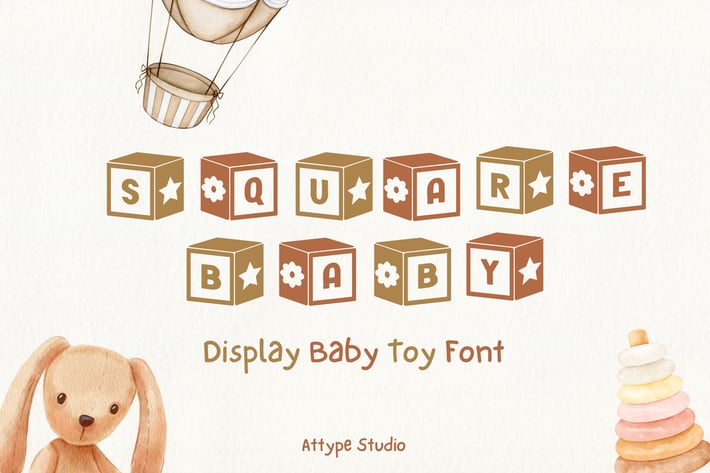
Square Baby - Display Font
Let your creativity build a world of fun with Square Baby, a delightful display font inspired by children's alphabet blocks!
With a chunky, friendly design and playful details,
Perfect for children's books, toy packaging, educational materials, and playful branding,
Square Baby adds a whimsical touch that makes words feel like building blocks of imagination.